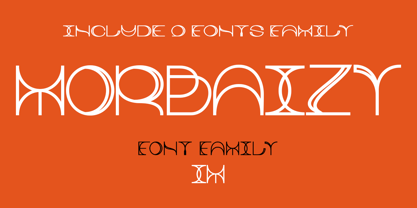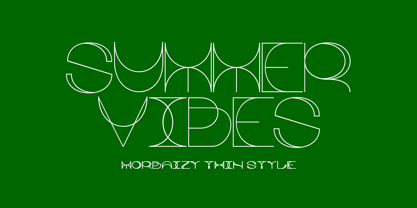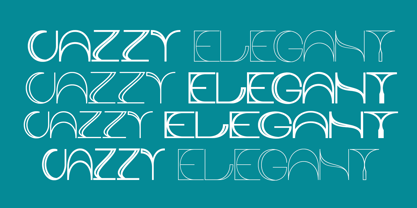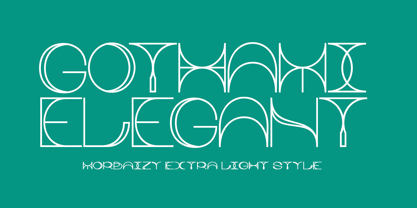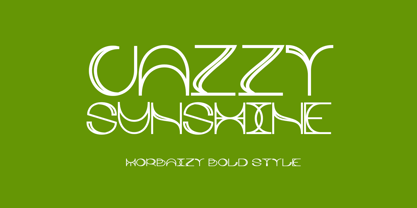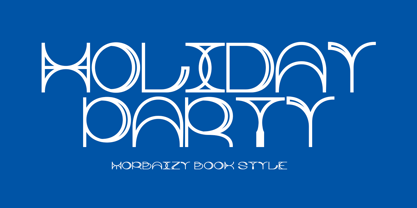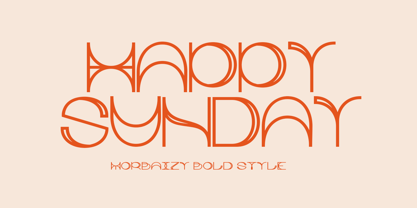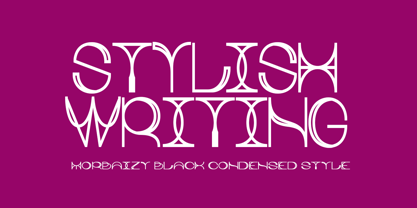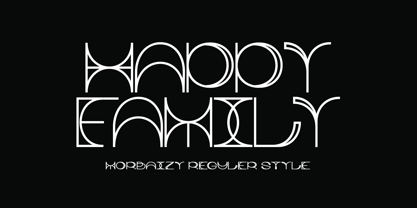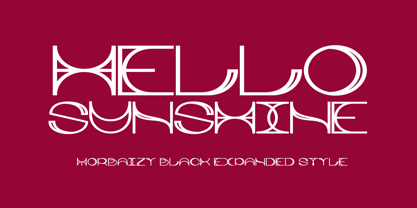
Morbaizy Family
The Morbaizy Family Font Family was designed by Ikhsan Maulana and published by IM Studio. Morbaizy Family contains 9 styles and family package options. More about this family
Morbaizy is a geometric typeface with elegant decorative touches. Designed in 2025, this font encompasses Latin uppercase and lowercase, Greek, and Central European letters. It draws inspiration from a mix of Byzantine typography, Japanese nuances, and the Milwaukee cityscape—which also gives it its name.
Available in six weights, Morbaizy is ideal for logos, short titles, posters, book covers, labels, social media marketing, and a variety of other creative design needs.